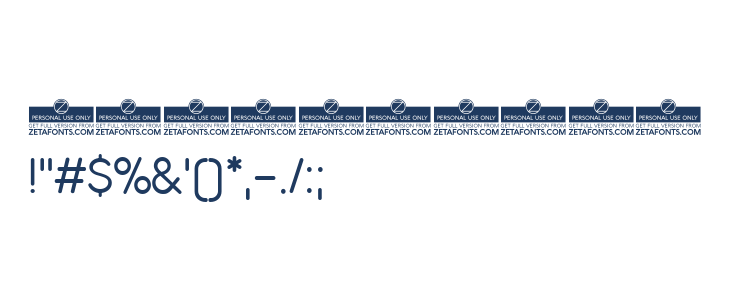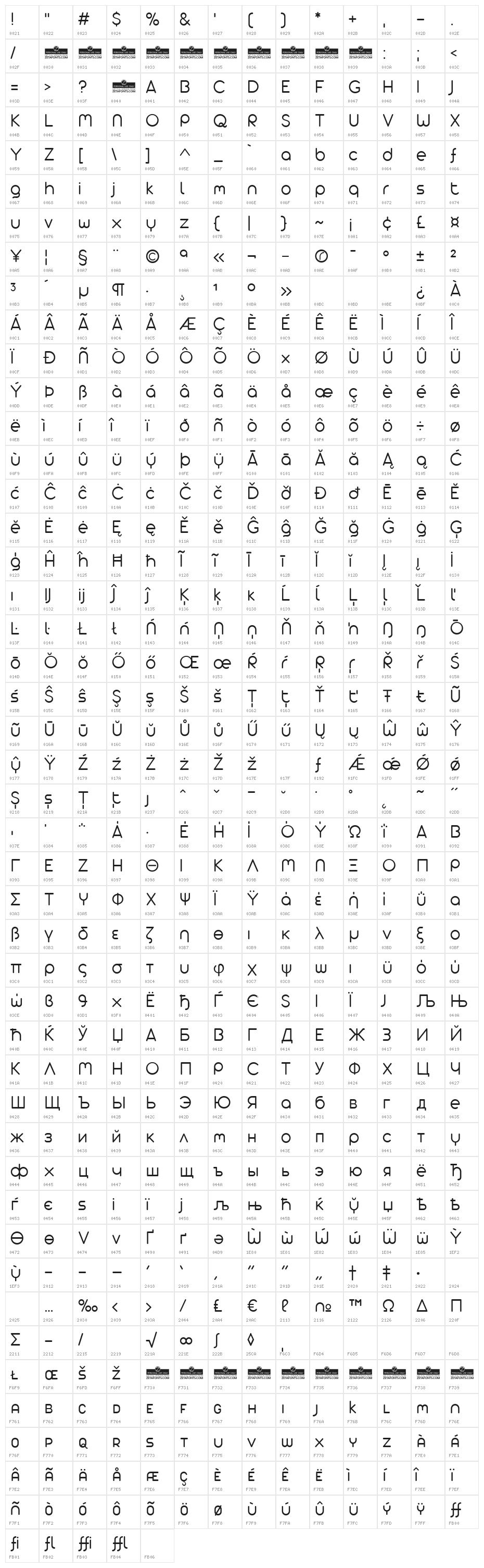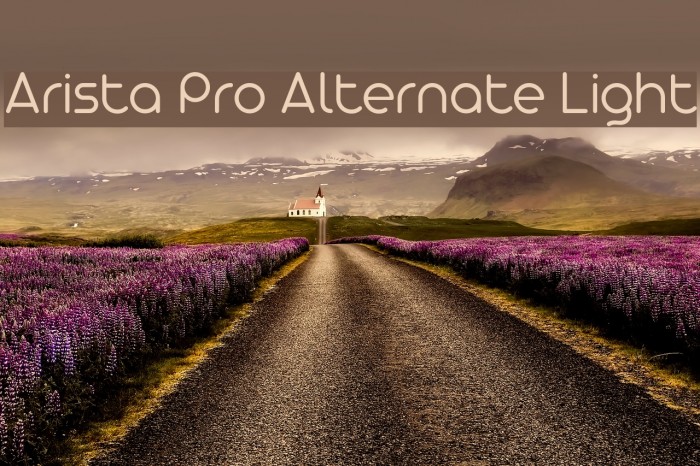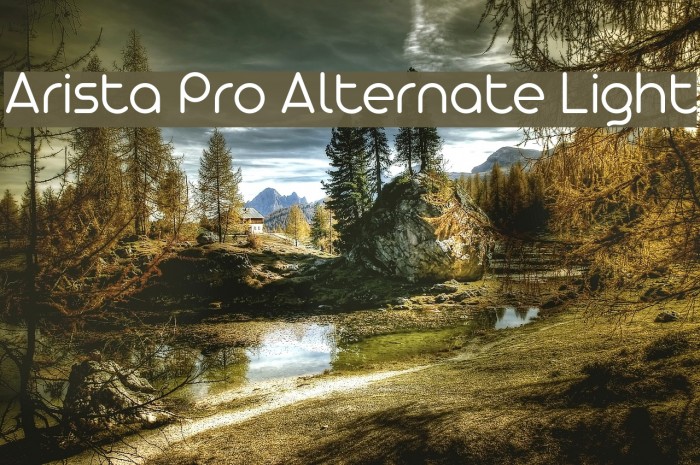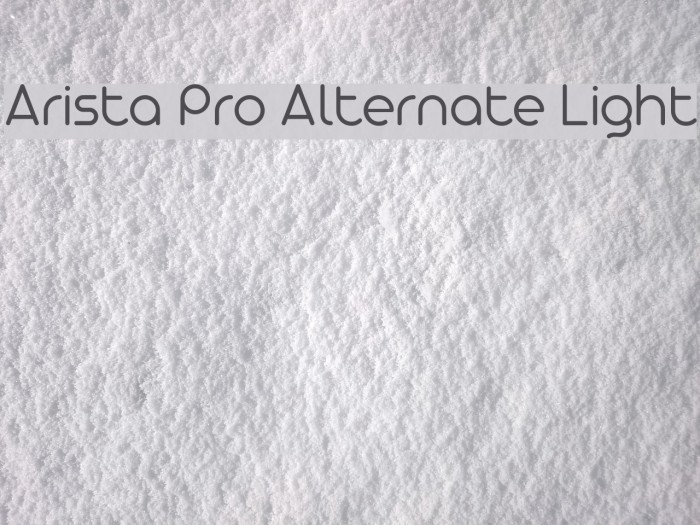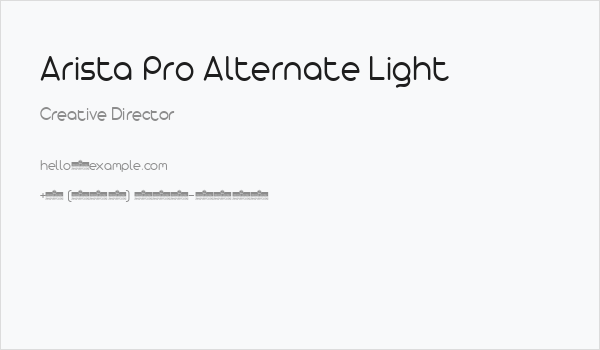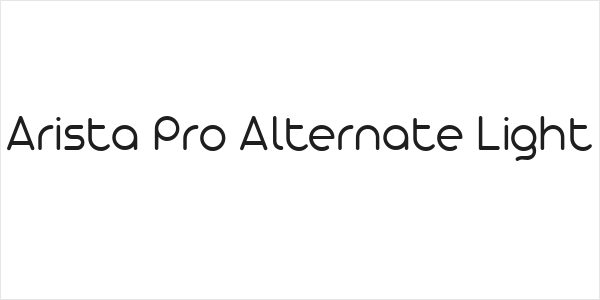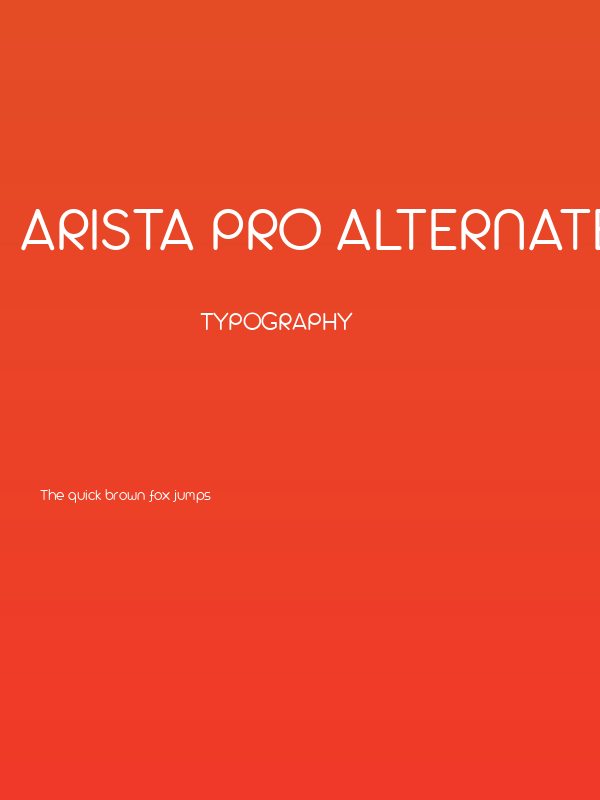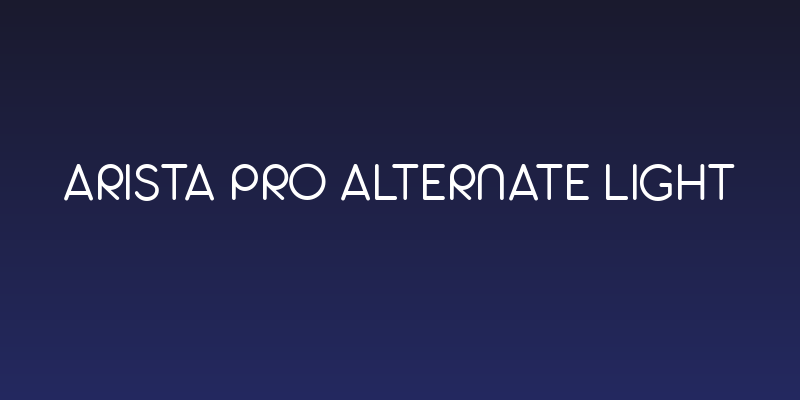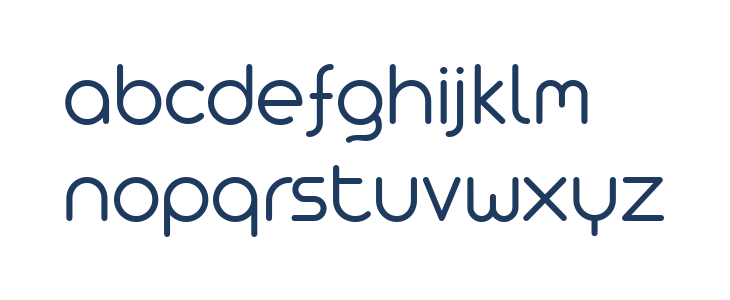
Arista Pro Alternate Light Font
Arista Pro Alternate Light Description
This font features a clean and modern design with rounded edges and a smooth, flowing appearance. The characters are evenly spaced, providing a harmonious and balanced look. The uppercase and lowercase letters maintain a consistent style, with a slight geometric influence that adds to its contemporary feel. The numerals and special characters are designed to complement the alphabet, ensuring readability and aesthetic appeal. Its simplicity and elegance make it versatile for various design applications.
| Proposed Projects | Ideal for branding, web design, advertising, and editorial projects where a modern and approachable look is desired. |